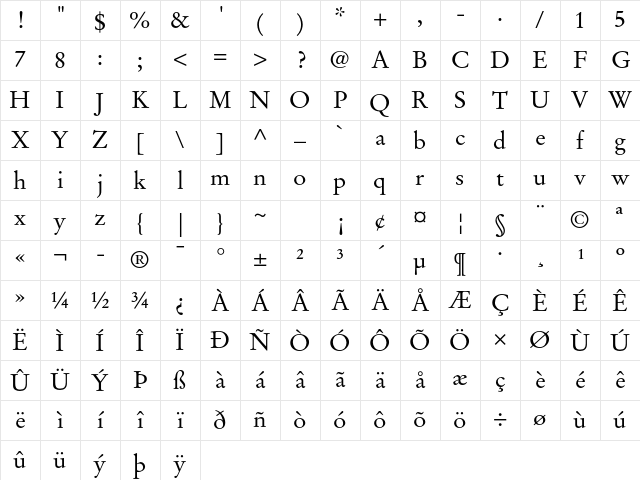
Stempel Garamond LT Std Roman
Designer: Stempel Staff
Design Context for Stempel Garamond LT Std
Stempel Garamond LT Std is a composed and adaptable typeface that performs quietly and consistently across a wide range of design contexts. Its slender proportions lend an understated elegance to any composition.